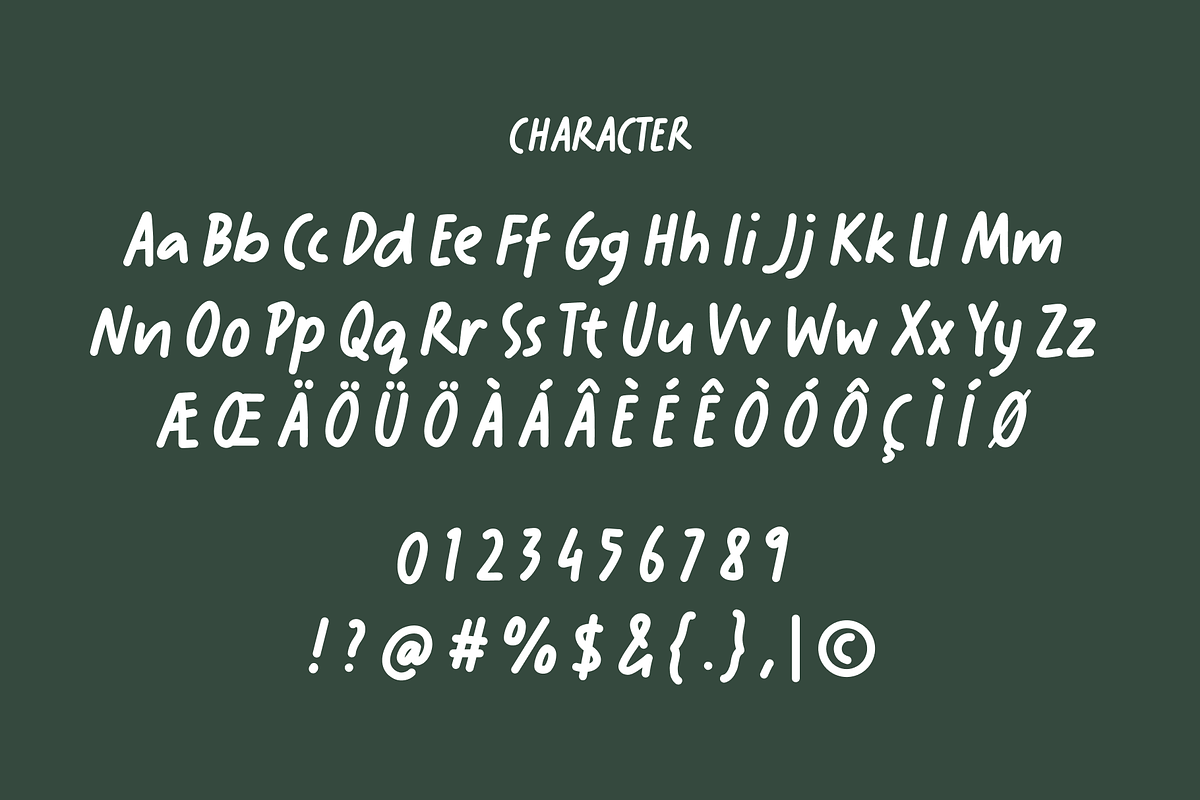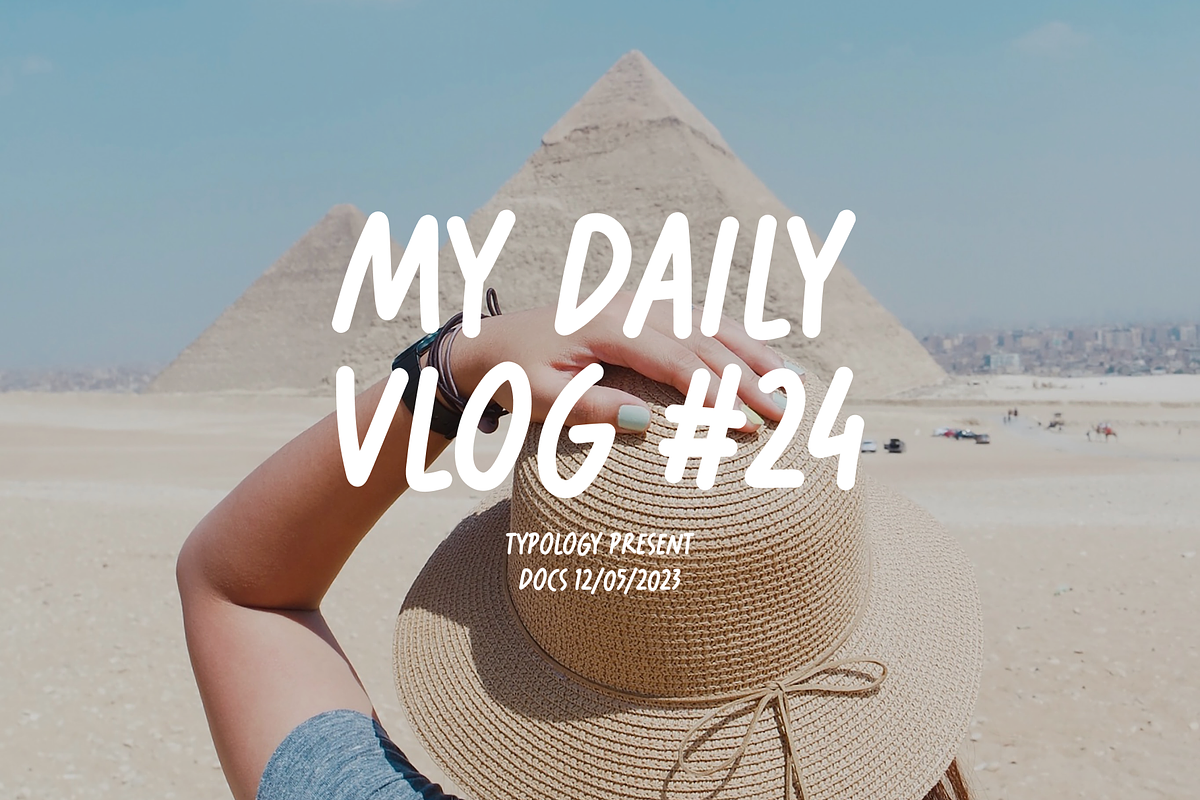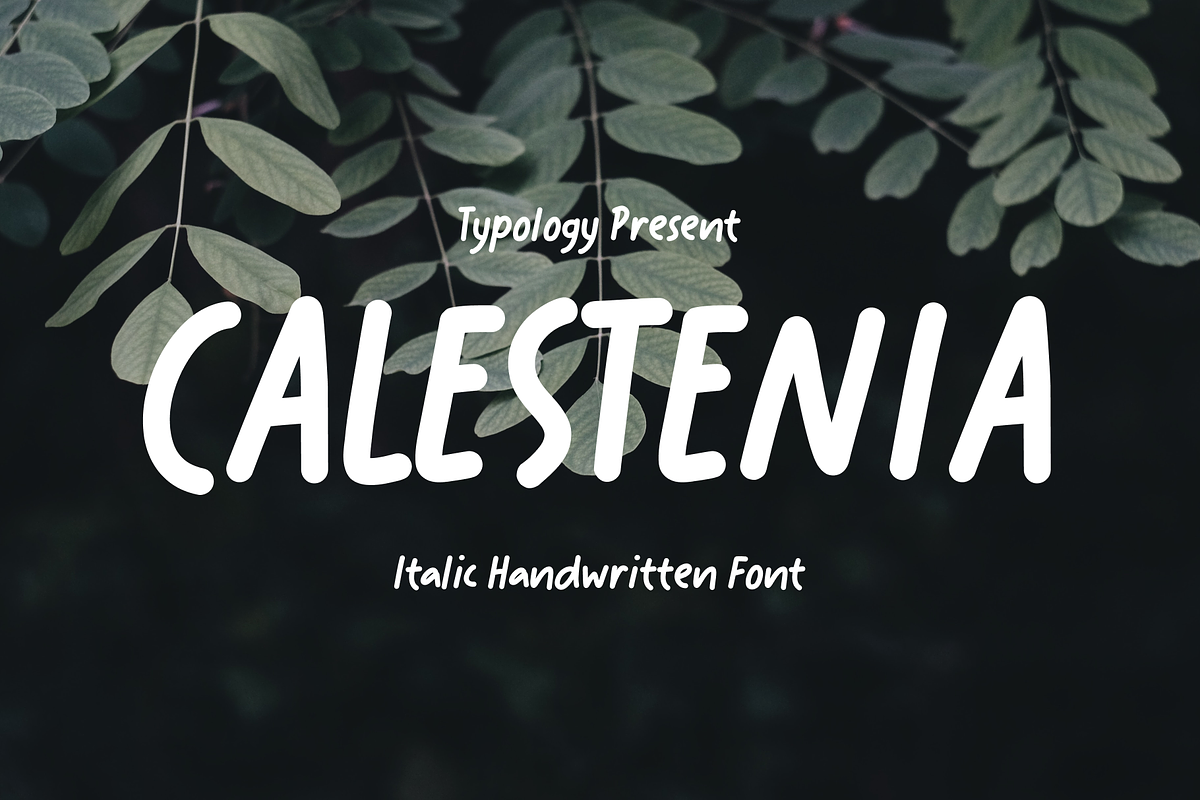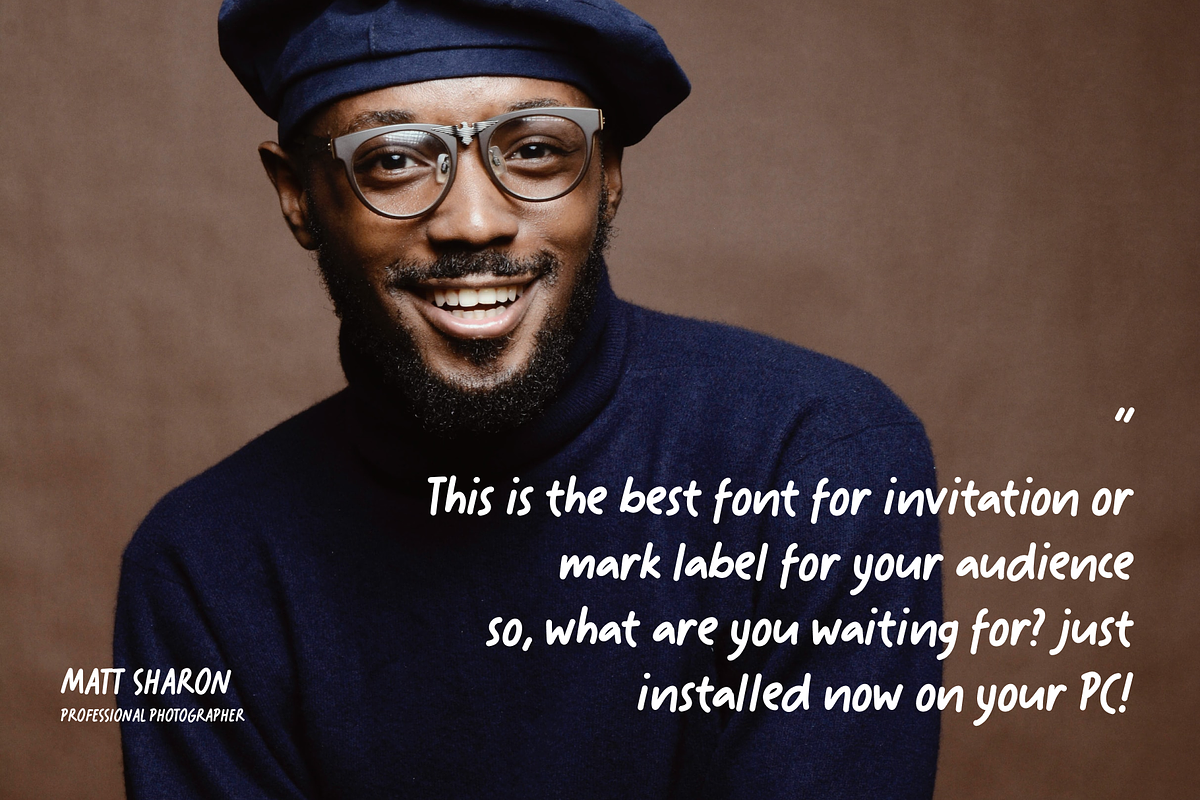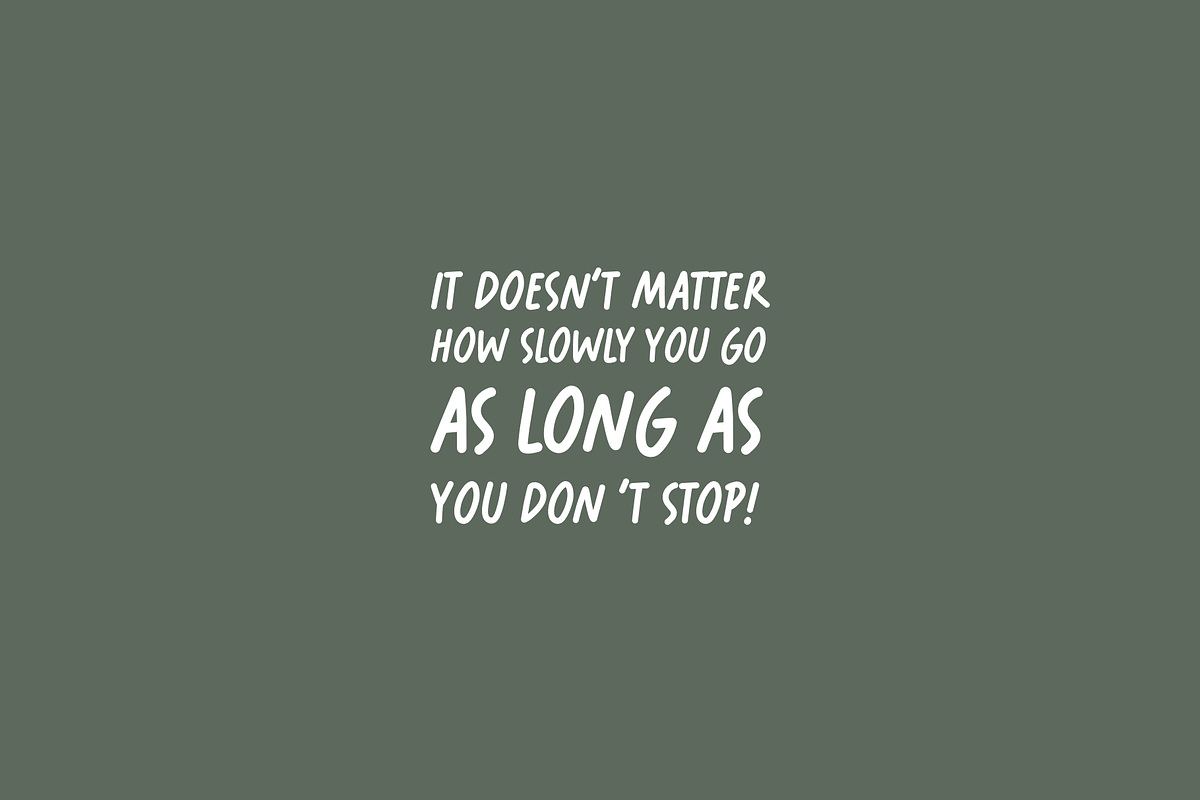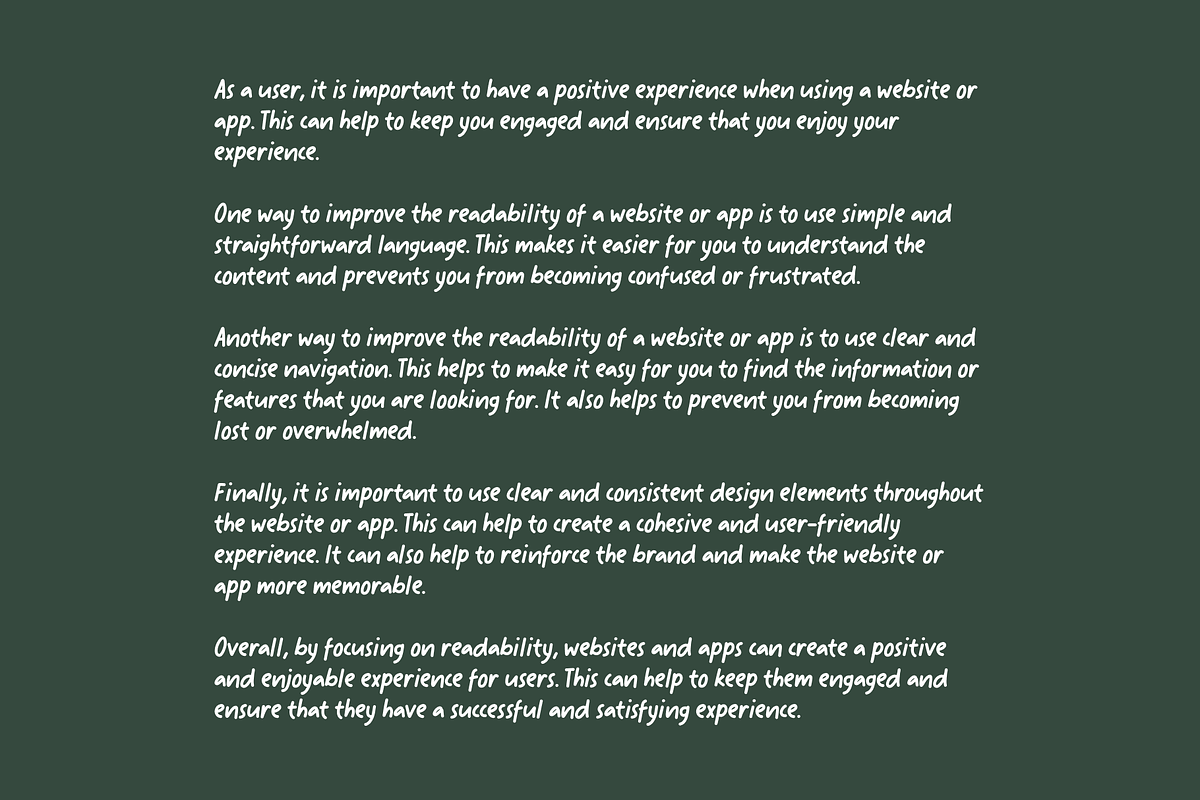
Calestenia Font
"Get ready to add some flair to your designs with Calestenia, the font that's as playful as it is stylish! This italic handwritten font is like a party for your eyes with its whimsical curves and bouncy lines. Give your projects a boost of fun and download Calestenia now!"